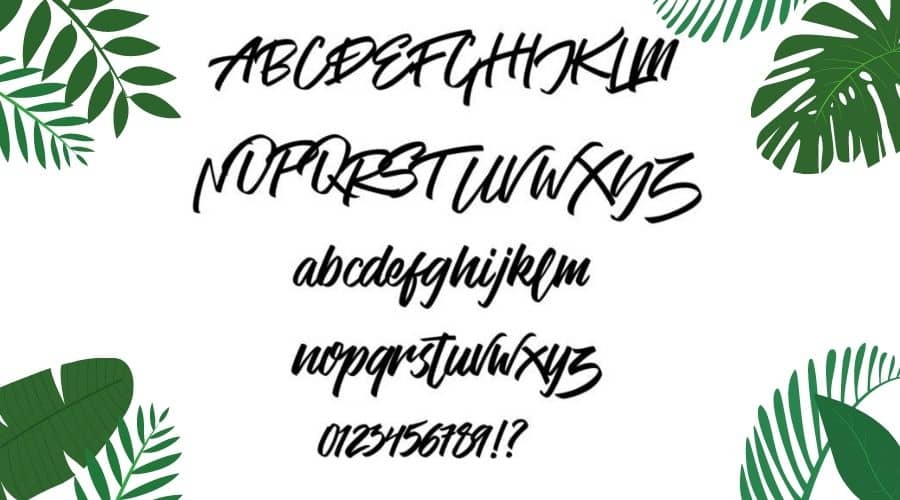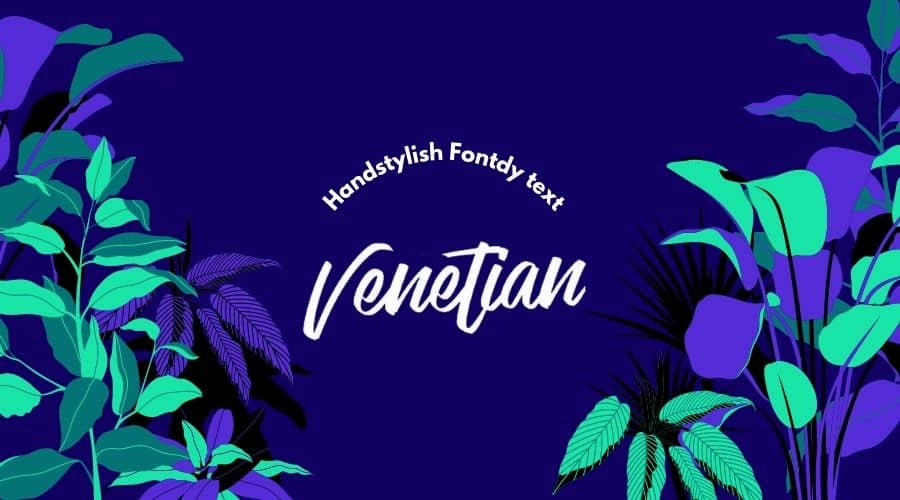
Venetian Handstylish Font Free
Say hello to Venetian Handstylish Font Free! It is stylish Script and Handwritten font. It is created and shared by Alif Devan R. on Mar 28, 2017.
Using Venetian Handstylish Font to achieve spectacular handstylish outcomes is the simplest task. The Venetian Handstylish Font is only for personal use! Starting with uppercase, lowercase, Numeric, and certain Special character and alternatives, fonts are available. Fonts in both TrueType and OpenType formats are available. The font is comes under the sections of script an Handwritten font.
This attractive font is ideal for logos, headers, titles, prints, and other forms of creative expression. Venetian Handstylish Font is also great for logos, branding, invites, stationery, wedding designs, logos, business cards, covers, t-shirts, social media posts, and more. It will also can be utilise to generate a stunning image and text in various colors and fashions. Venetian Handstylish Font Free can also be used in various Handwritten and scrpt projects.